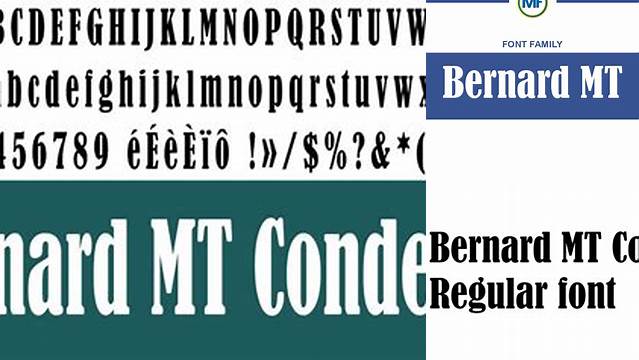
Hey guys! Ever stumbled upon a font that just screams elegance and sophistication? That's Bernard MT Condensed for you! This font has been a favorite for designers for ages, and for good reason. Its classic yet stylish look makes it perfect for a wide range of projects. In this guide, we're diving deep into everything you need to know about the Bernard MT font family, including where to find a free download (and how to do it legally!), its history, usage, and tons more. So, buckle up and let's get started!
What is Bernard MT Condensed?
Bernard MT Condensed is a timeless font known for its elegant and sophisticated appearance. It's a classic choice for designers looking to add a touch of class to their projects. With its tall, slender characters and graceful curves, this font exudes a sense of refinement and style. Whether you're working on branding materials, editorial layouts, or website designs, Bernard MT Condensed can help you achieve a polished and professional look. Its versatility makes it a valuable asset in any designer's toolkit. Think of it as the James Bond of fonts – always suave and ready for action!
History of the Bernard MT Font
The story behind the Bernard MT font is as interesting as the font itself. It was originally designed by Karl Wiemer in 1937 for the Monotype Corporation. This was a time when font design was undergoing a lot of innovation, and Bernard MT Condensed quickly became a standout. Its unique characteristics and elegant form made it a popular choice for various applications, from print to advertising. Over the years, it has maintained its appeal, proving that good design truly is timeless. Knowing the history of a font can give you a deeper appreciation for its design and how it has evolved over time.
Why is Bernard MT So Popular?
So, what makes Bernard MT such a hit? There are several reasons! Its elegance is a major draw – it just looks good! The font's clarity and readability, even in its condensed form, also contribute to its popularity. Plus, it's super versatile, working well in both headings and body text. Designers love using it for everything from logos to magazine layouts. Its enduring popularity is a testament to its timeless design and practical usability. It's like that classic little black dress in the font world – always in style!
Bernard MT Font Family Variants
The Bernard MT font family isn't just a one-trick pony! It comes in several variations, each with its own unique characteristics. This includes weights like regular, bold, and italic, allowing you to create visual hierarchy and emphasis in your designs. Knowing the different variants can help you choose the perfect one for your specific project needs. It's like having a whole toolbox of options at your fingertips!
Using Bernard MT in Graphic Design
Bernard MT is a workhorse in the graphic design world. Its elegance makes it perfect for logos, branding materials, posters, and more. It can add a touch of sophistication to any project. Understanding how to use it effectively can elevate your designs to the next level. Think of it as the secret ingredient that makes your designs stand out!
Bernard MT for Web Design
While primarily known for print, Bernard MT can also be used in web design. However, you'll need to ensure you have the appropriate web font license and use it strategically. Due to its unique characteristics, it's often best used for headings and shorter text elements rather than large blocks of body text. Using it wisely on the web can add a touch of elegance to your online presence.
Bernard MT for Logos and Branding
One of the most popular uses for Bernard MT is in logos and branding. Its sophisticated look can help a brand project a sense of luxury and class. Many high-end brands have used similar fonts to create a memorable visual identity. If you're aiming for a refined and elegant brand image, Bernard MT is definitely worth considering.
Conclusion: The Enduring Appeal of Bernard MT
In conclusion, Bernard MT is a font with enduring appeal. Its elegance, versatility, and readability make it a valuable asset for any designer. While finding a Bernard MT font family free download can be tricky, understanding your licensing options and exploring free alternatives ensures you can use this beautiful font responsibly. Whether you're designing a logo, a website, or a print publication, Bernard MT can add a touch of sophistication and class to your projects. So, go ahead and explore the possibilities – you might just find your new favorite font!